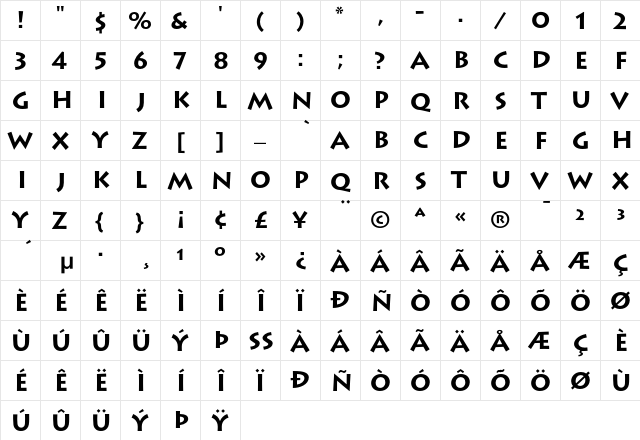
Lithos Bold
Design Context for Lithos Typeface
Lithos is a composed and adaptable typeface that performs quietly and consistently across a wide range of design contexts. Its bold stroke weight gives it real presence on the page.
Pro Tip: Use Lithos in both headline and body roles to test its range before committing to a single application.